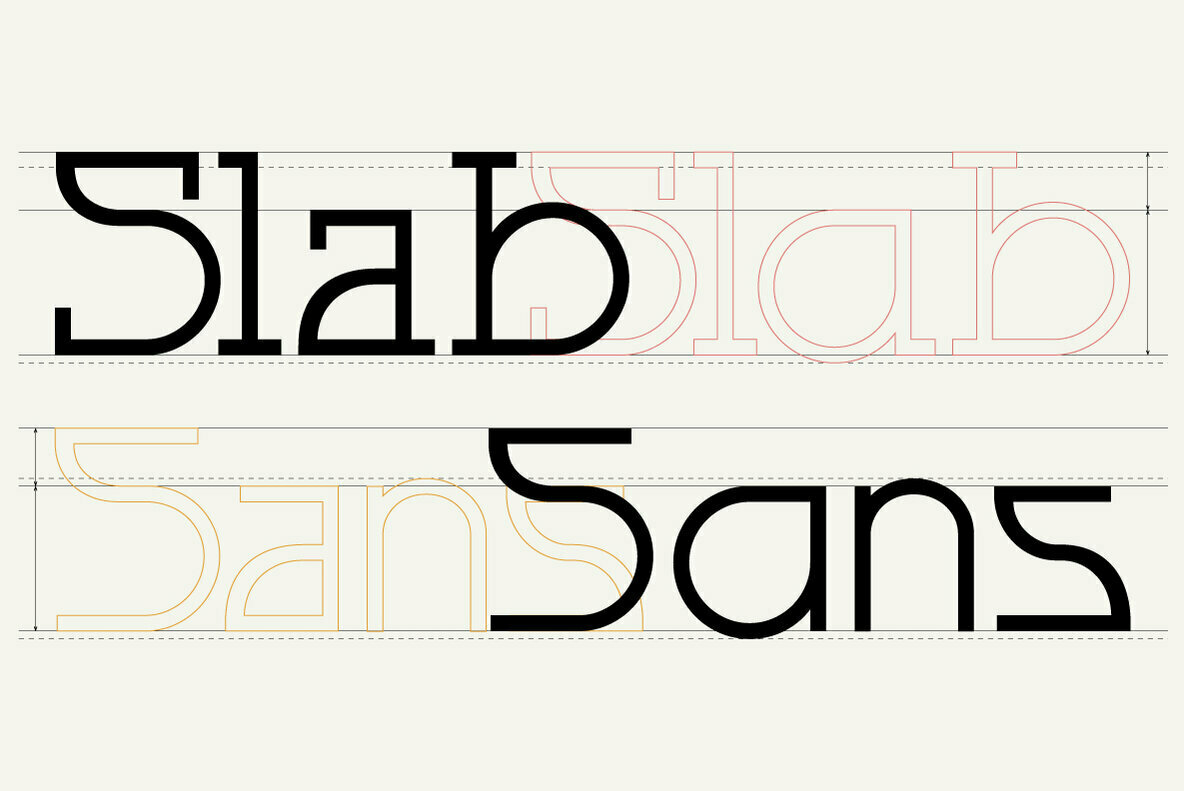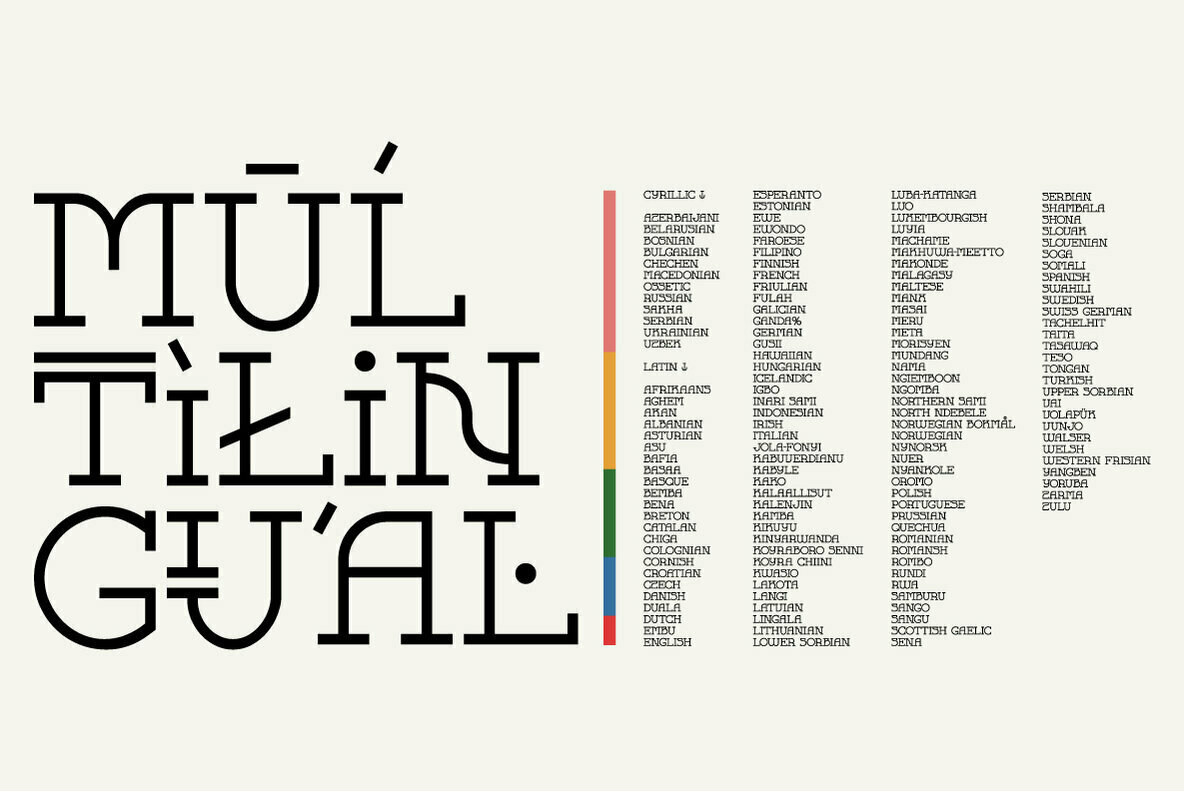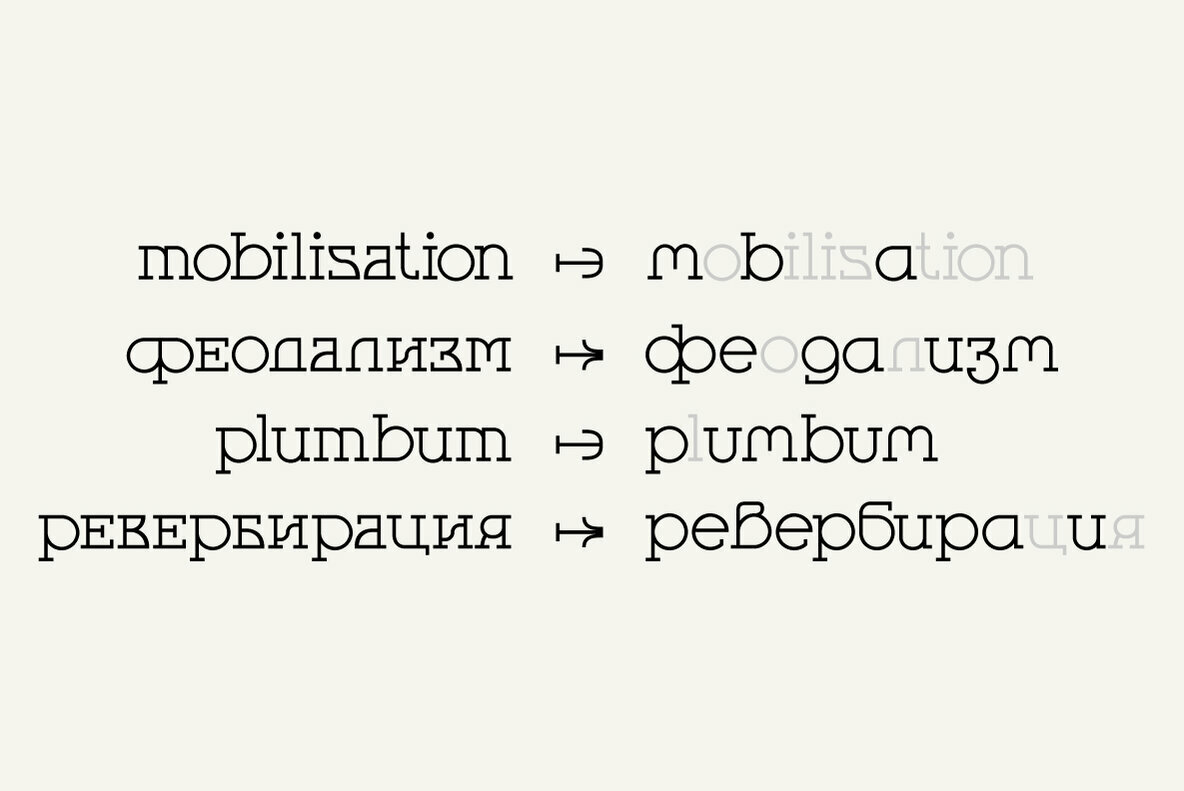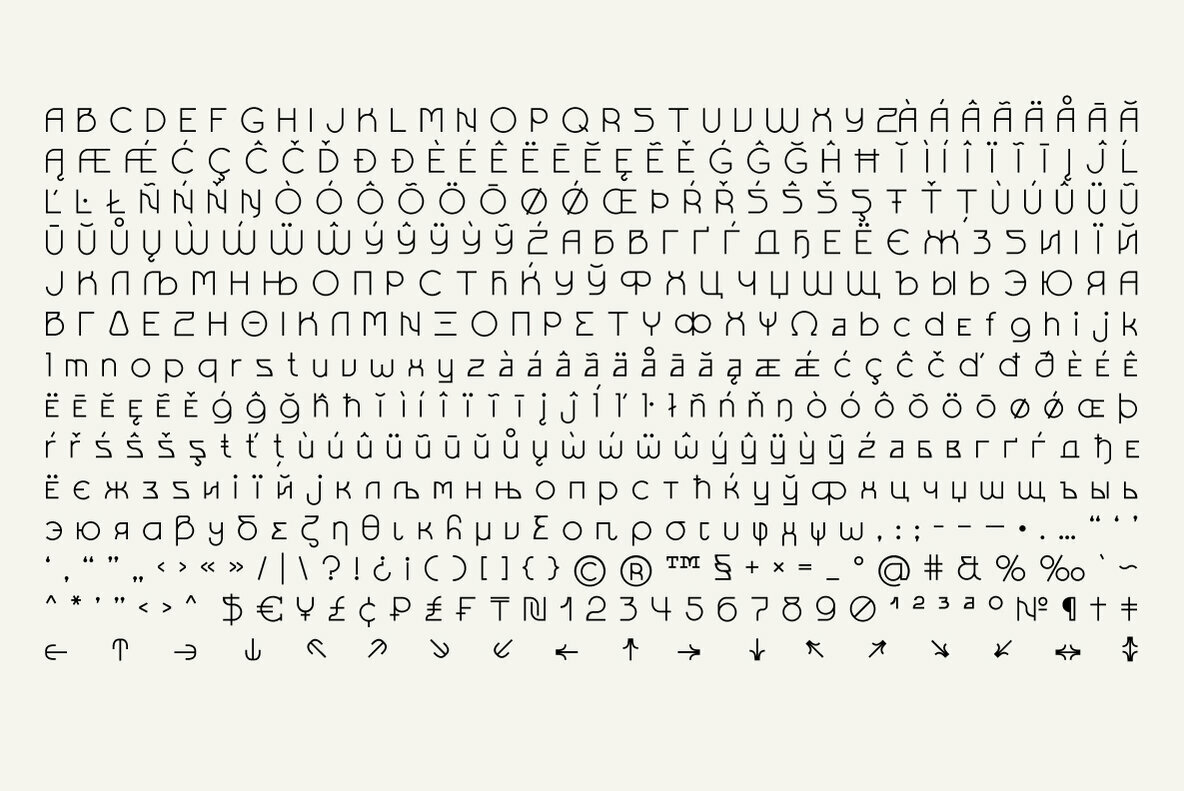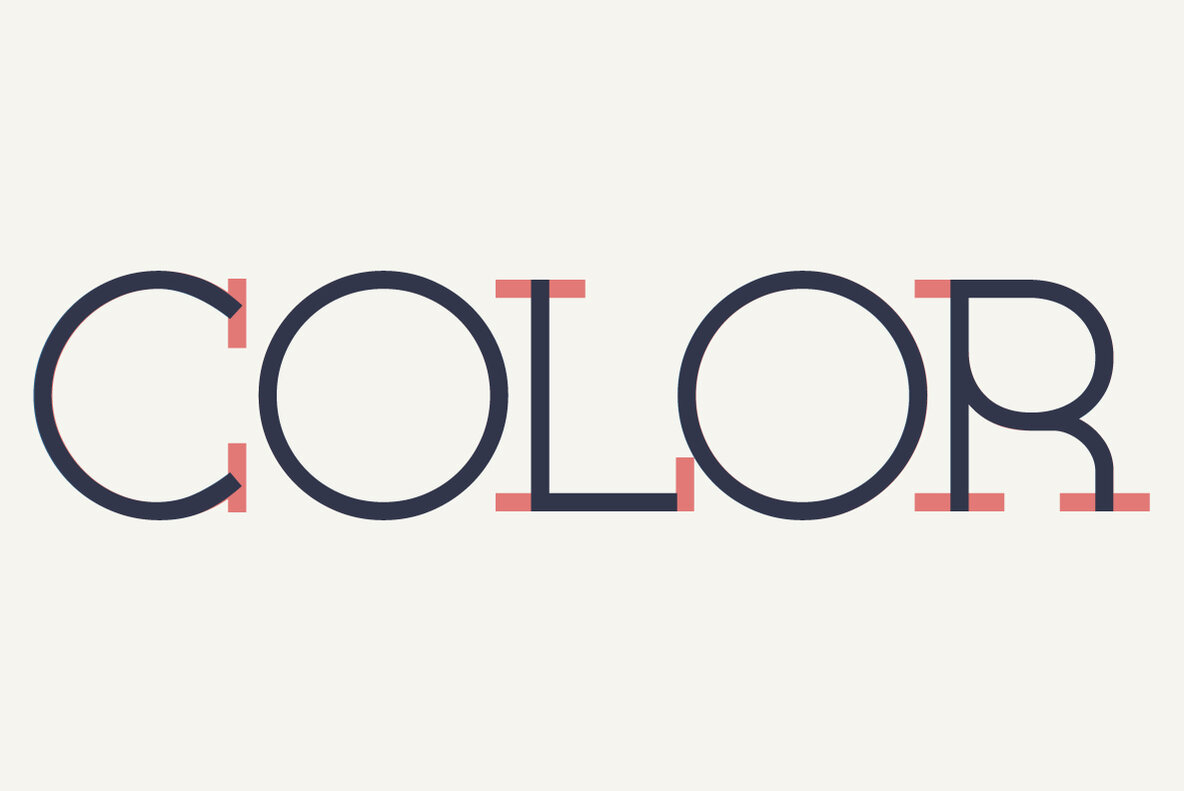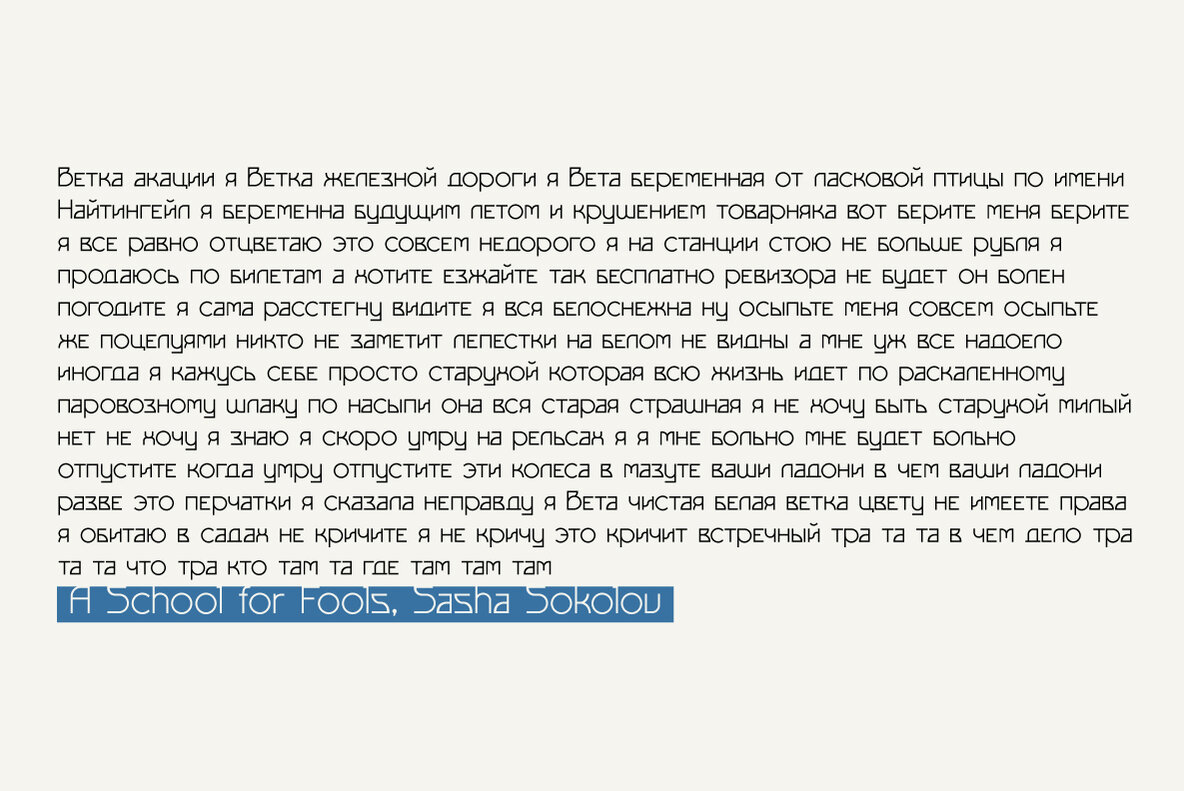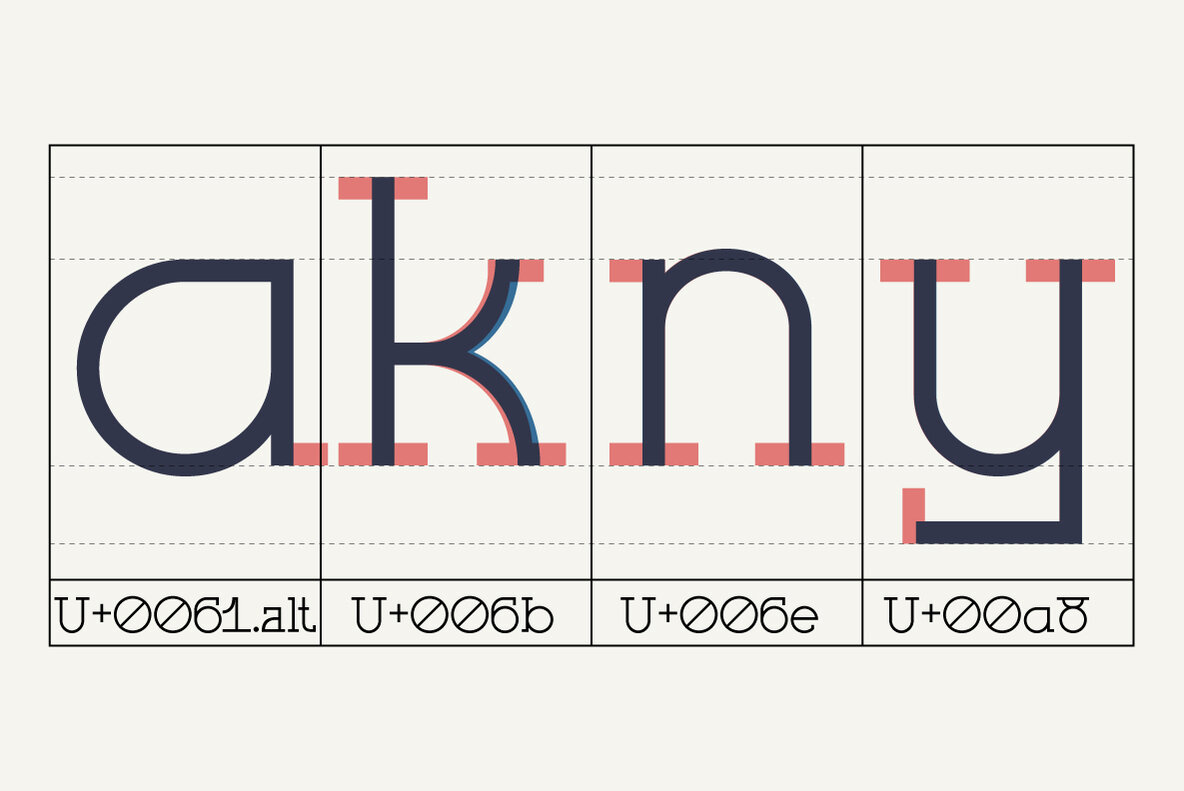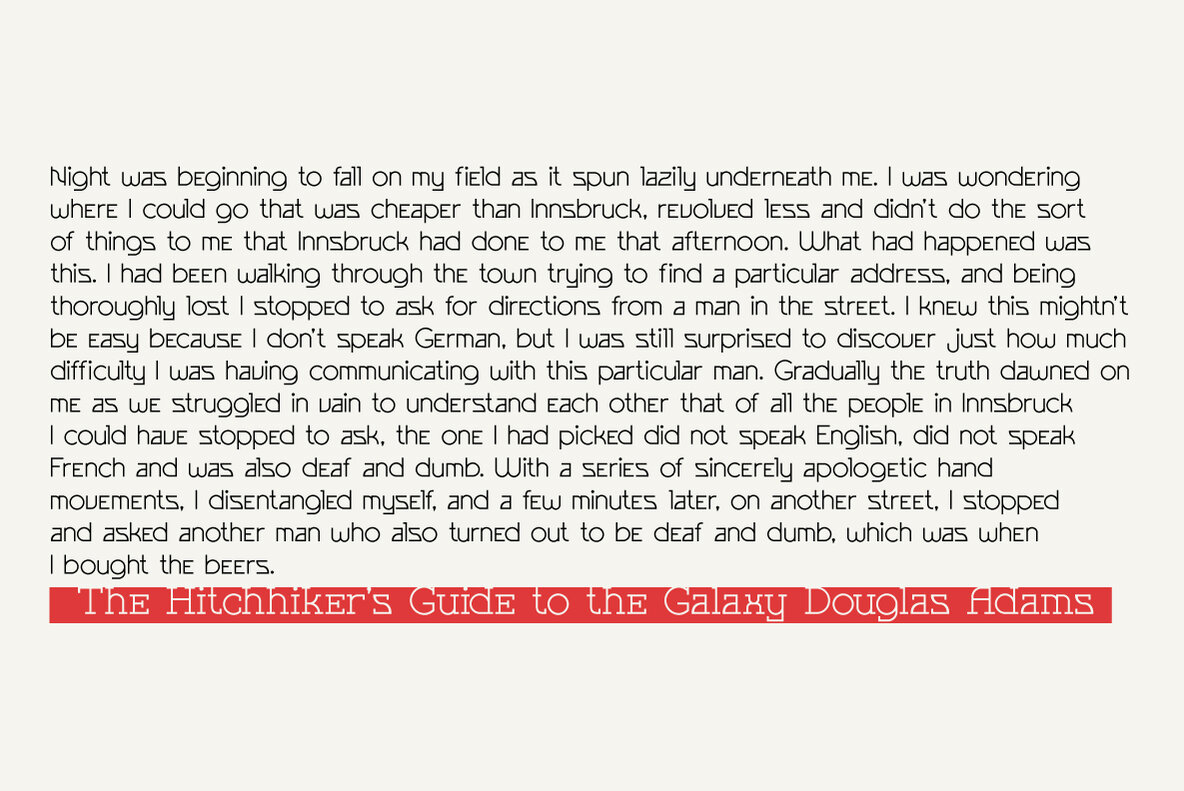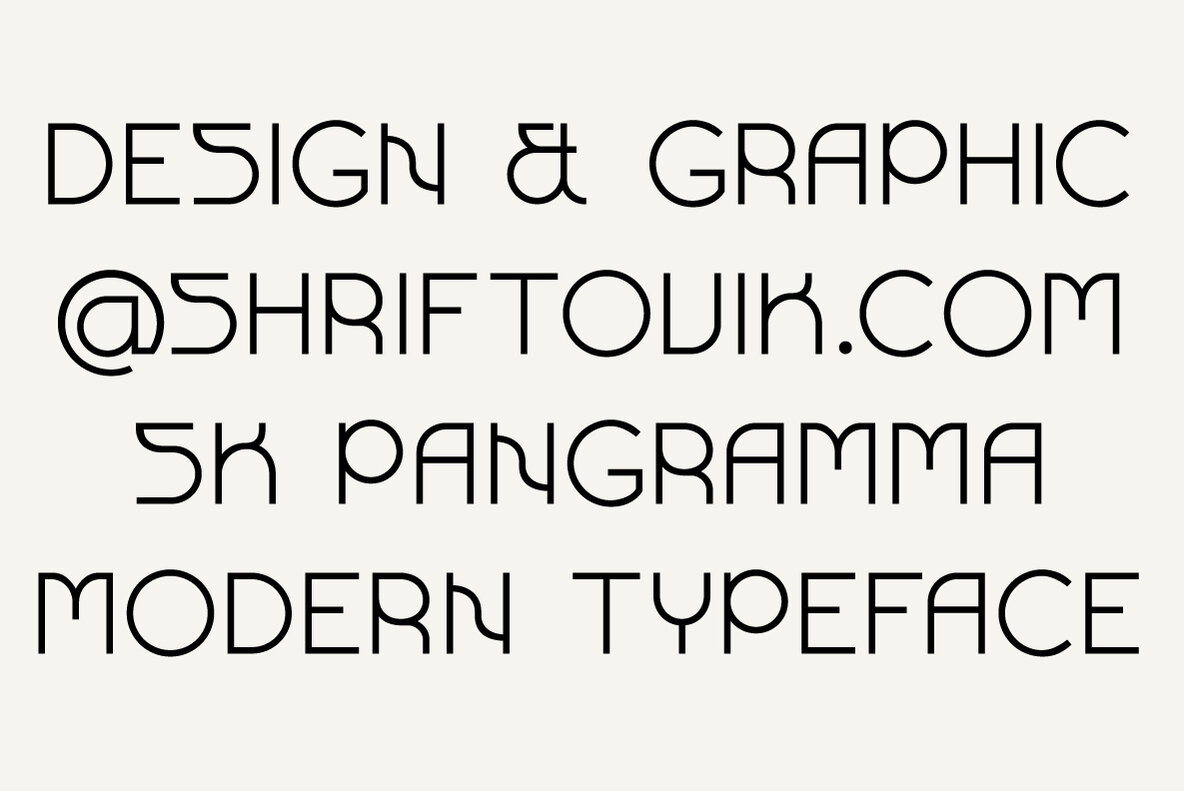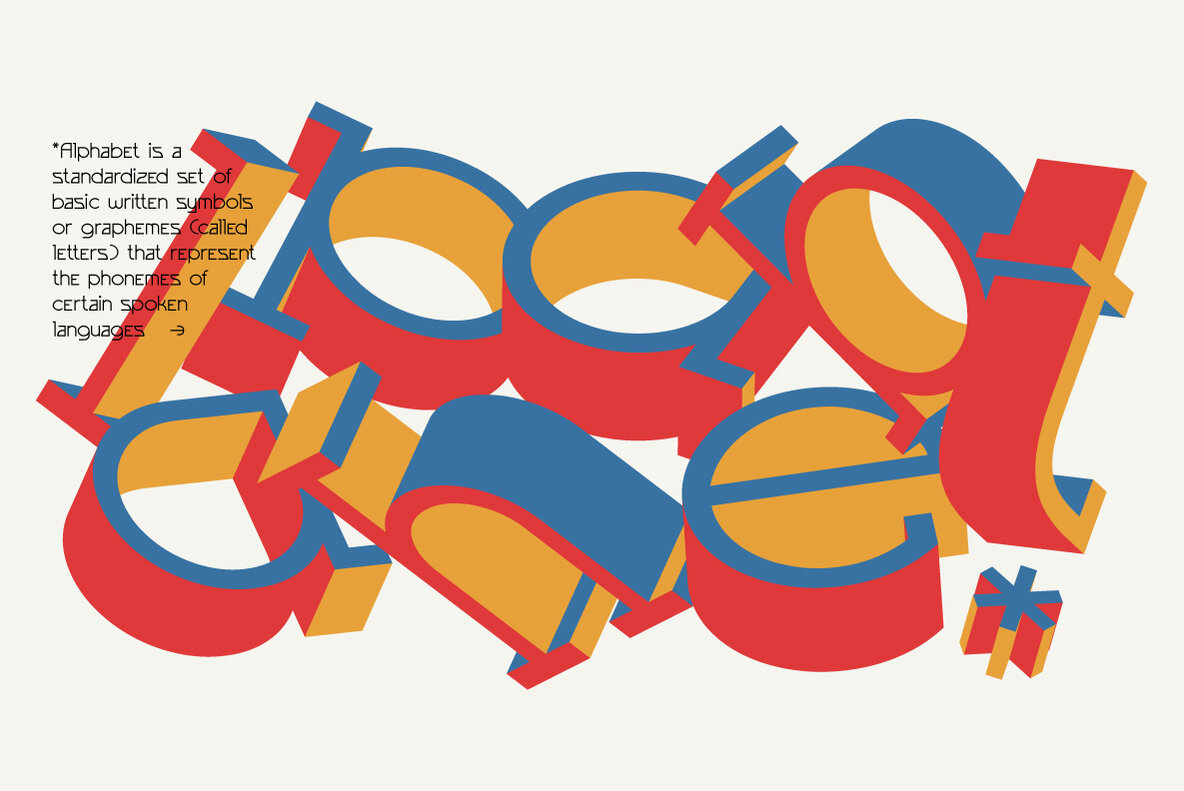
SK Pangramma Font
SK Pangramma Sans
SK Pangramma Slab
SK Pangramma is a modern universal geometric typeface. For greater universality, it was developed in two stylistic variations: sans serif and slab serif. The uniqueness of the typeface is supported by stylistic alternatives that give the character set the spirit of modern typeface design. The SK Pangramma typeface is named this way because it supports more than 200 languages, including the Extended Latin Alphabet, Cyrillic, and even Greek. Thanks to a wide range of characters, alternatives, and two stylistic variations, the typeface is great for design projects of any complexity, no matter whether it is printed products or web design.